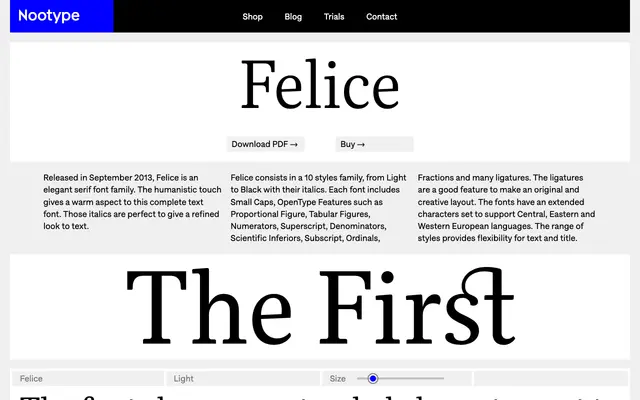
Felice
A ten-style humanist serif released in 2013, with italics designed as a core feature for refined text setting.
Released in September 2013, this elegant serif covers five weights from Light to Black, each with a matching italic. The humanist character gives warmth to body text, while the italics are treated as a primary tool for typographic refinement rather than an afterthought. Each style includes small caps, a full suite of OpenType figure sets, fractions, ordinals and multiple ligatures, with extended Latin coverage for Central, Eastern and Western European languages.
Described as having a humanistic touch with elegant proportions, placing it within the humanist serif tradition. Italics are prominent, supporting its role as a refined text face.